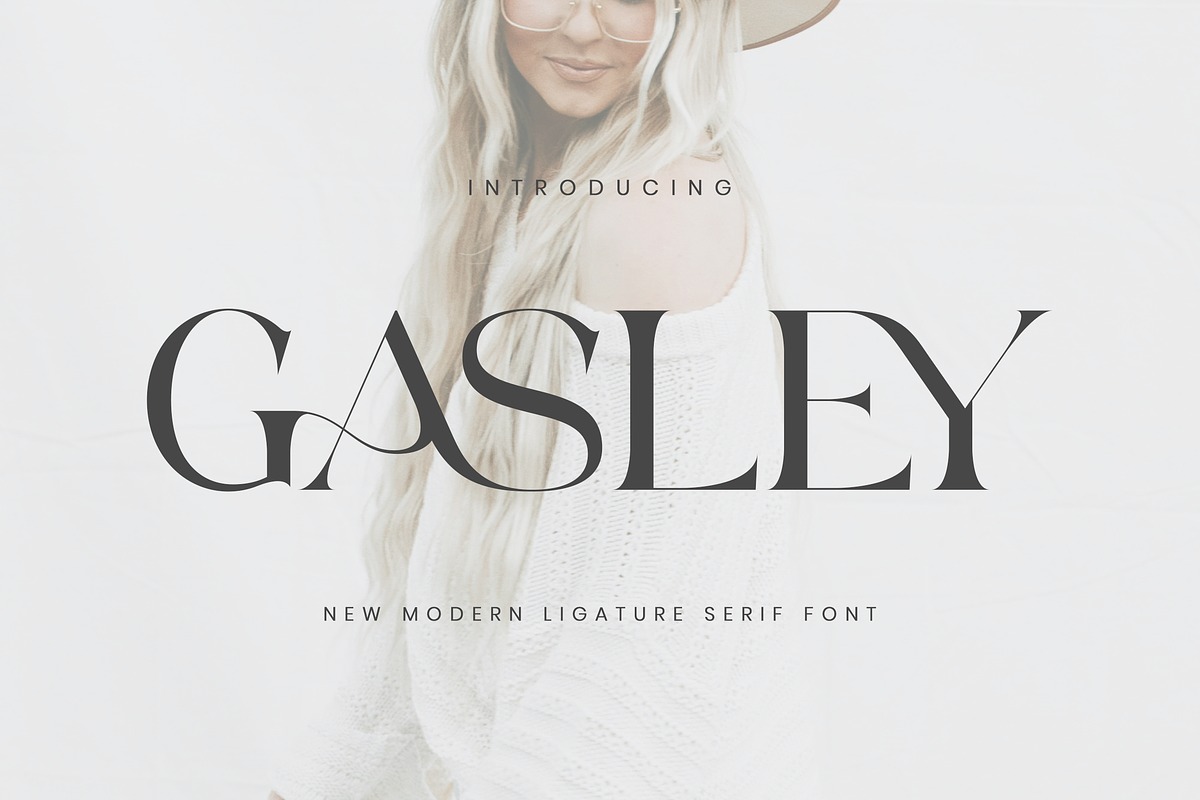
Gasley – Timeless Serif Font
Gasley – Timeless Serif Font is a distinctive and expressive font crafted to bring personality, structure, and creative energy into your projects. Gasley Stylish Ligature Typeface, inspired by the famous minimalist logo perfect for the purposes of designing templates, brochures, videos, advertising branding, logos and more.